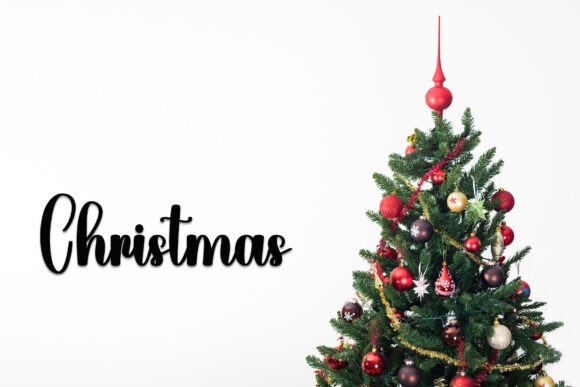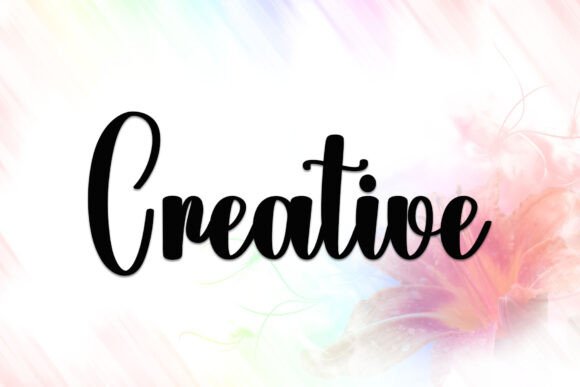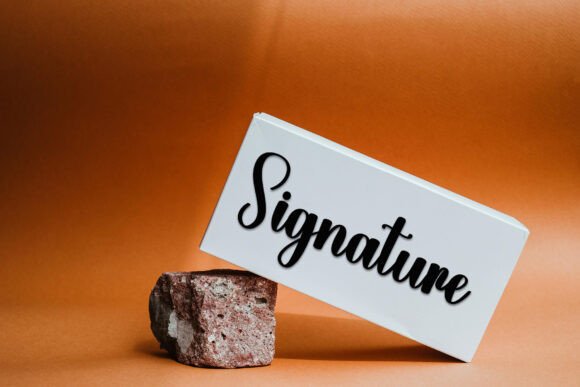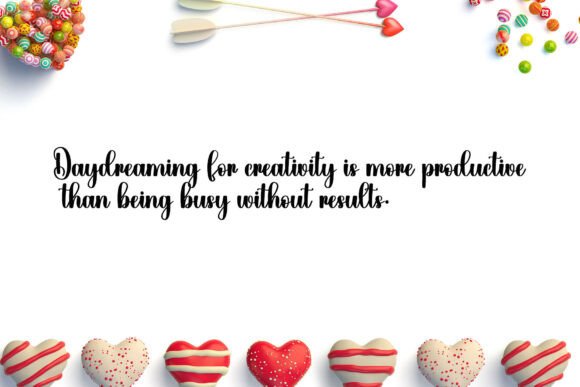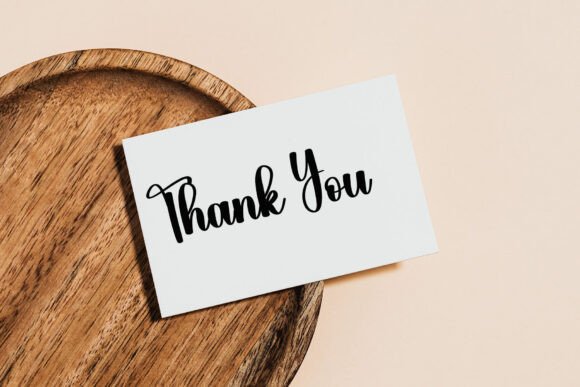
Introducing Decals Font: Elevate Your Designs with Timeless Elegance
In the world of typography, fonts play a crucial role in conveying the tone and personality of a design. For designers and crafters seeking to add a touch of sophistication and class to their projects, Decals Font is an exceptional choice. This trendy handwritten font boasts a contemporary atmosphere and impeccable form, drawing inspiration from timeless classic calligraphy.
The Essence of Decals Font
Decals Font is a beautiful, elegant, and versatile typeface that can elevate any design project. Its unique blend of traditional calligraphy and modern flair makes it perfect for a wide range of applications, from branding and advertising to packaging and digital media. With Decals Font, you can add a touch of luxury and refinement to your designs, setting them apart from the ordinary.
Key Features of Decals Font
- Trendy and Contemporary: Decals Font features a modern, fresh look that’s perfect for designers seeking to create stylish and on-trend designs.
- Handwritten Elegance: The font’s handwritten style adds a touch of warmth and personality to any design, making it ideal for projects where a personal touch is desired.
- Inspired by Classic Calligraphy: Decals Font draws inspiration from timeless classic calligraphy, ensuring that your designs exude elegance and sophistication.
- Impeccable Form: The font’s impeccable form ensures that it remains clear and legible, even at smaller sizes, making it perfect for a wide range of applications.
- Versatile: Decals Font is a versatile typeface that can be used in a variety of design projects, from print to digital media.
Use Cases for Decals Font
Decals Font is an incredibly versatile typeface that can be used in a wide range of design projects, including:
- Branding and Identity: Use Decals Font to create stunning logos, business cards, and letterheads that exude elegance and sophistication.
- Advertising and Marketing: Add a touch of luxury to your advertising and marketing materials, including brochures, flyers, and social media graphics.
- Packaging: Use Decals Font to create eye-catching packaging designs that stand out on store shelves.
- Digital Media: Decals Font is perfect for digital media, including website headers, social media graphics, and email marketing campaigns.
Tips for Using Decals Font
- Pair with Neutral Backgrounds: Decals Font looks stunning on neutral backgrounds, allowing the font to take center stage.
- Experiment with Colors: Try pairing Decals Font with bold, bright colors to create a striking contrast.
- Use for Headings and Titles: Decals Font is perfect for headings and titles, adding a touch of elegance and sophistication to your designs.
In conclusion, Decals Font is an exceptional choice for designers and crafters seeking to add a touch of elegance and sophistication to their design projects. With its trendy, handwritten style and impeccable form, Decals Font is perfect for a wide range of applications, from branding and advertising to packaging and digital media. Whether you’re looking to create stunning logos, eye-catching packaging, or beautiful digital media, Decals Font is the perfect choice.